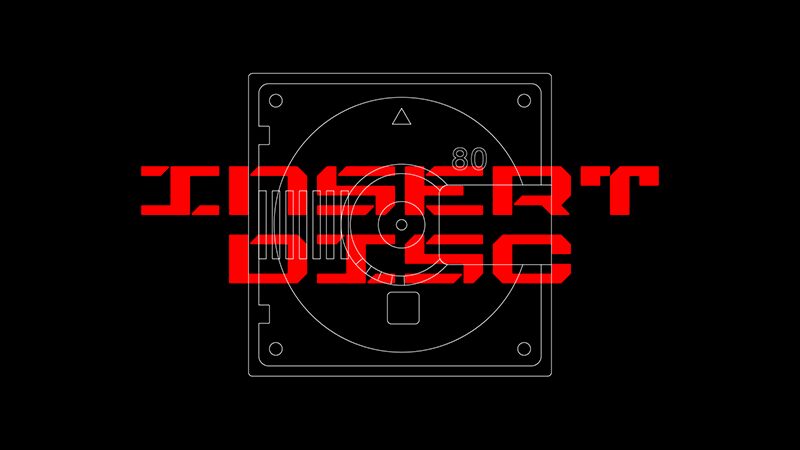
Monowire font by Matt Wilson is a free techno font which is angular, digital-inspired, contemporary, and modern. It has a futuristic design showcasing geometric characters for a seamless look with a high-tech vibe. The typeface is impactful and robust, which it expresses by borrowing elements from modern computing.
The font is suitable for digital use cases such as apps or website designs, but can also be used for printed displays, marketing material posters, book covers, branding, and advertising. Use it for stylized movie/series titles or display it in a larger size to create an immediate impact.
Inspired by cyberpunk aesthetics and crafted on an 85 grid, this free font features characters A-Z and 0-9. Future updates are planned to expand the character set. You can freely use this font for both personal and commercial projects.